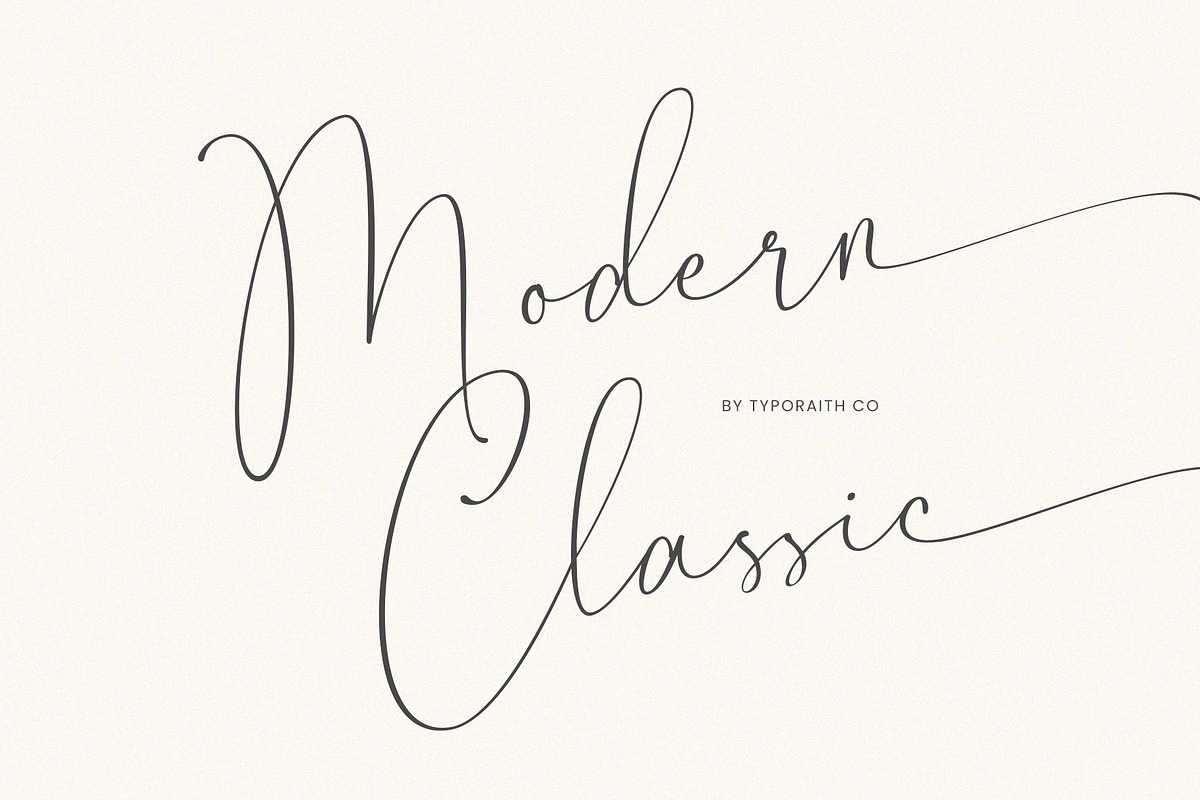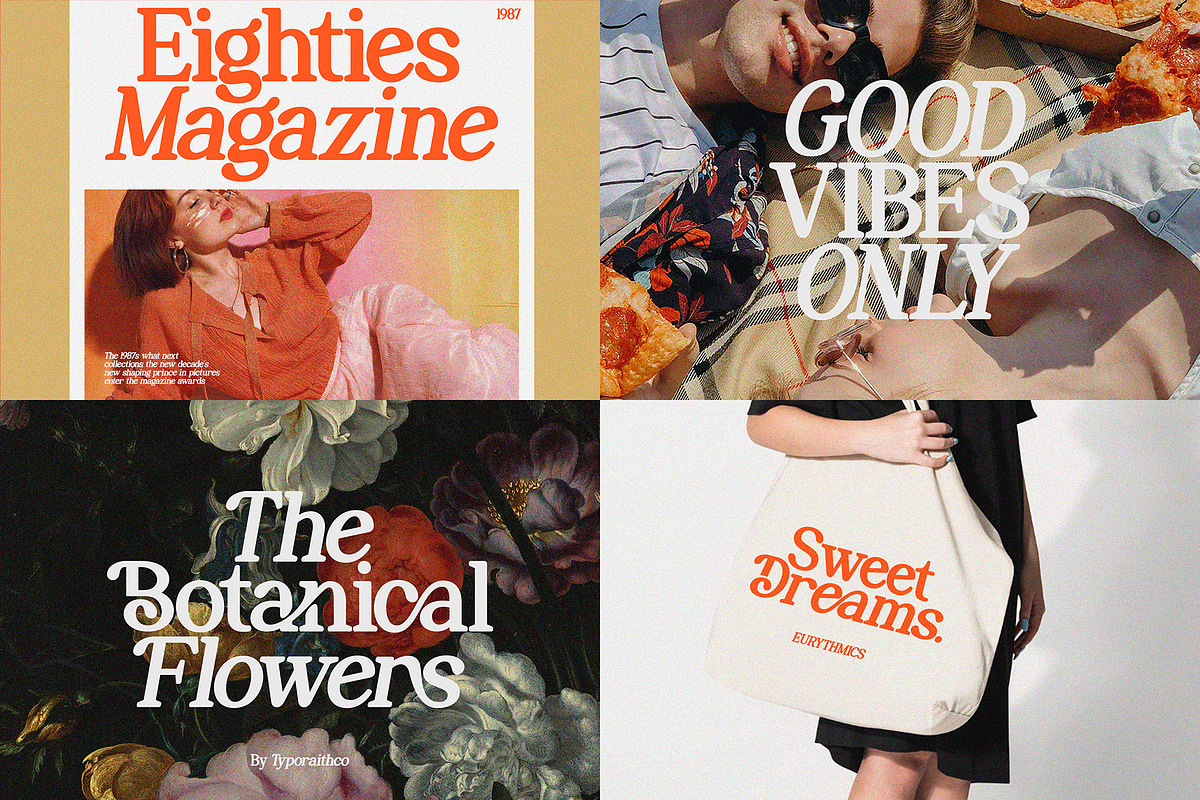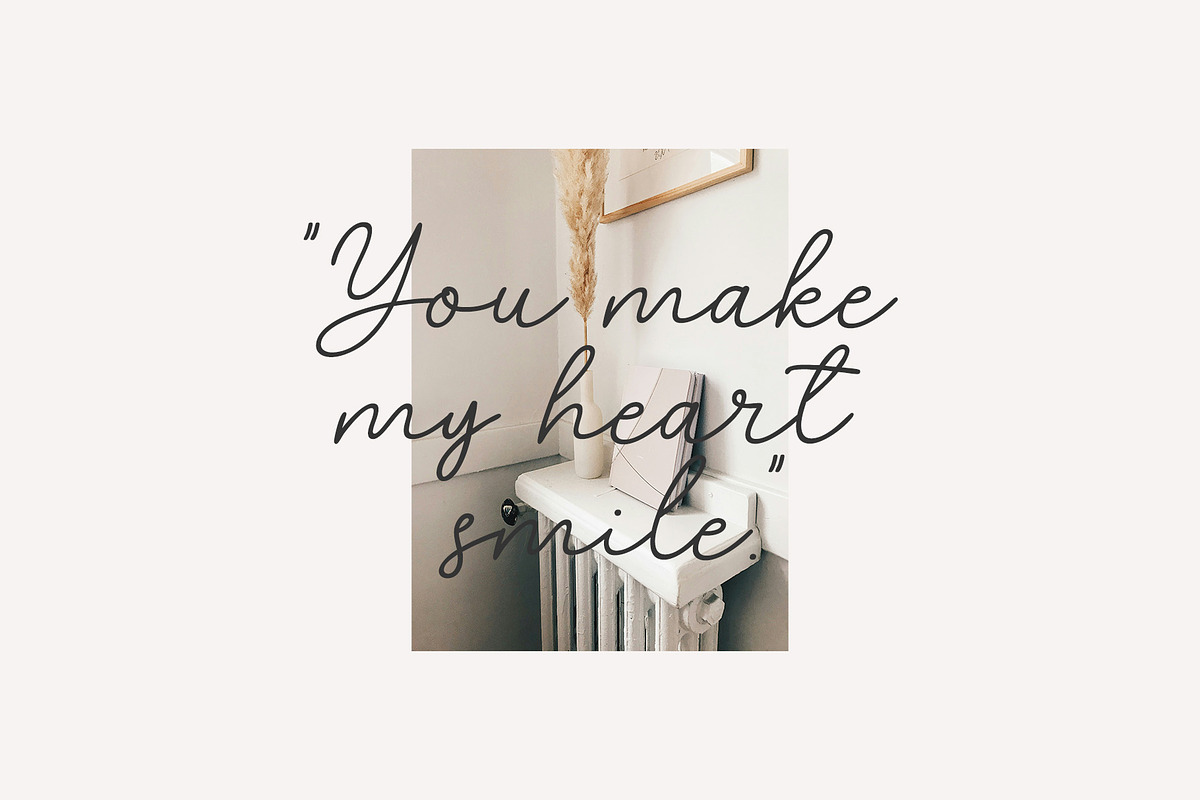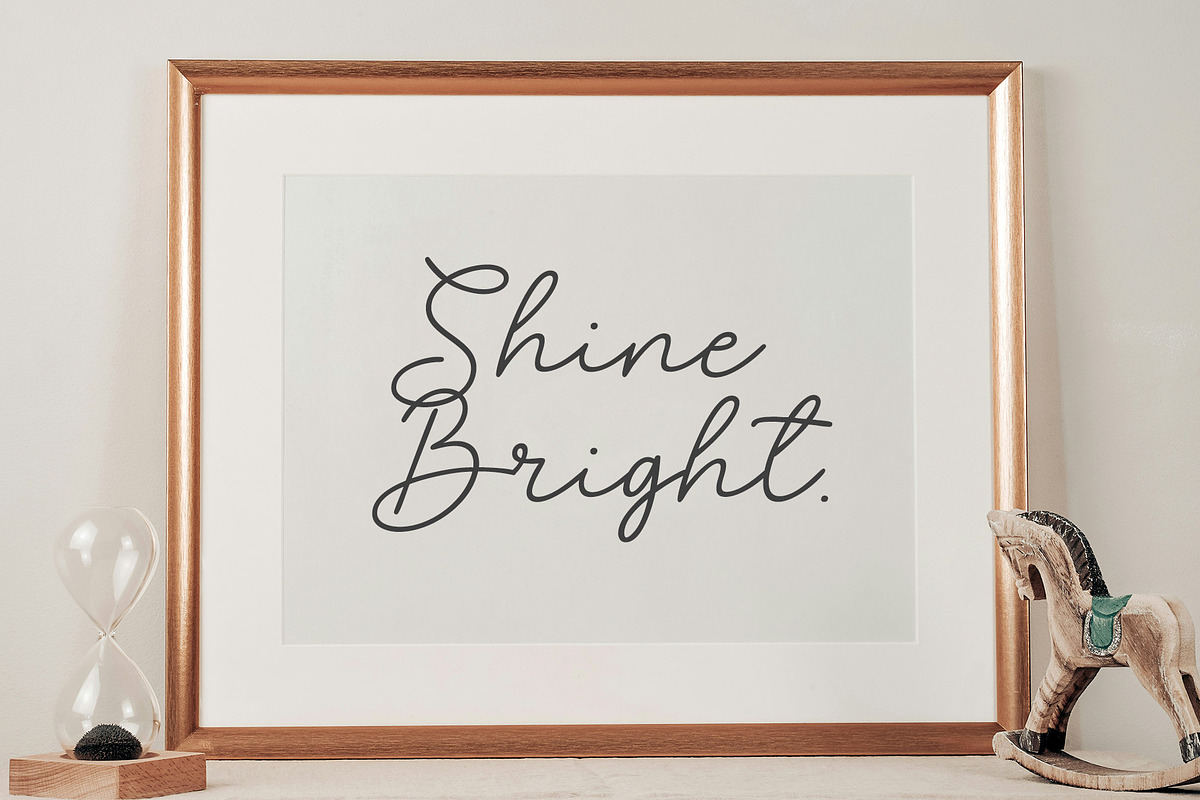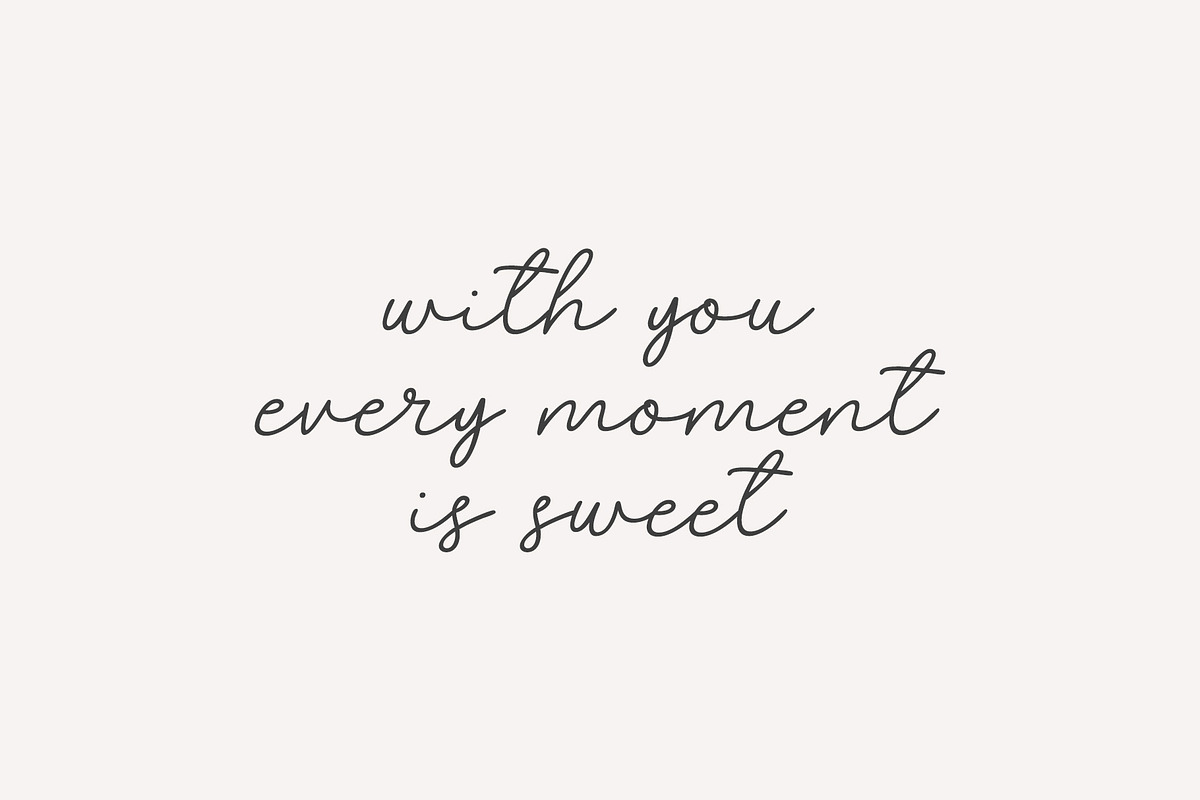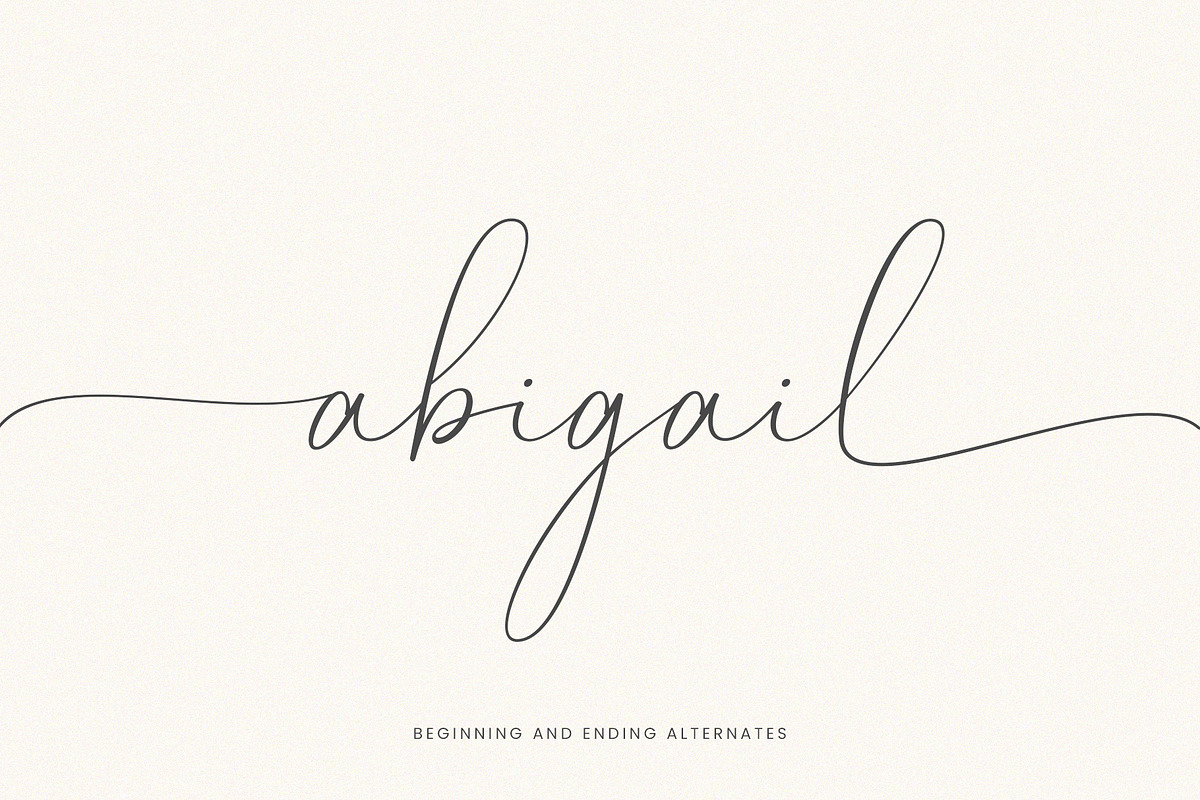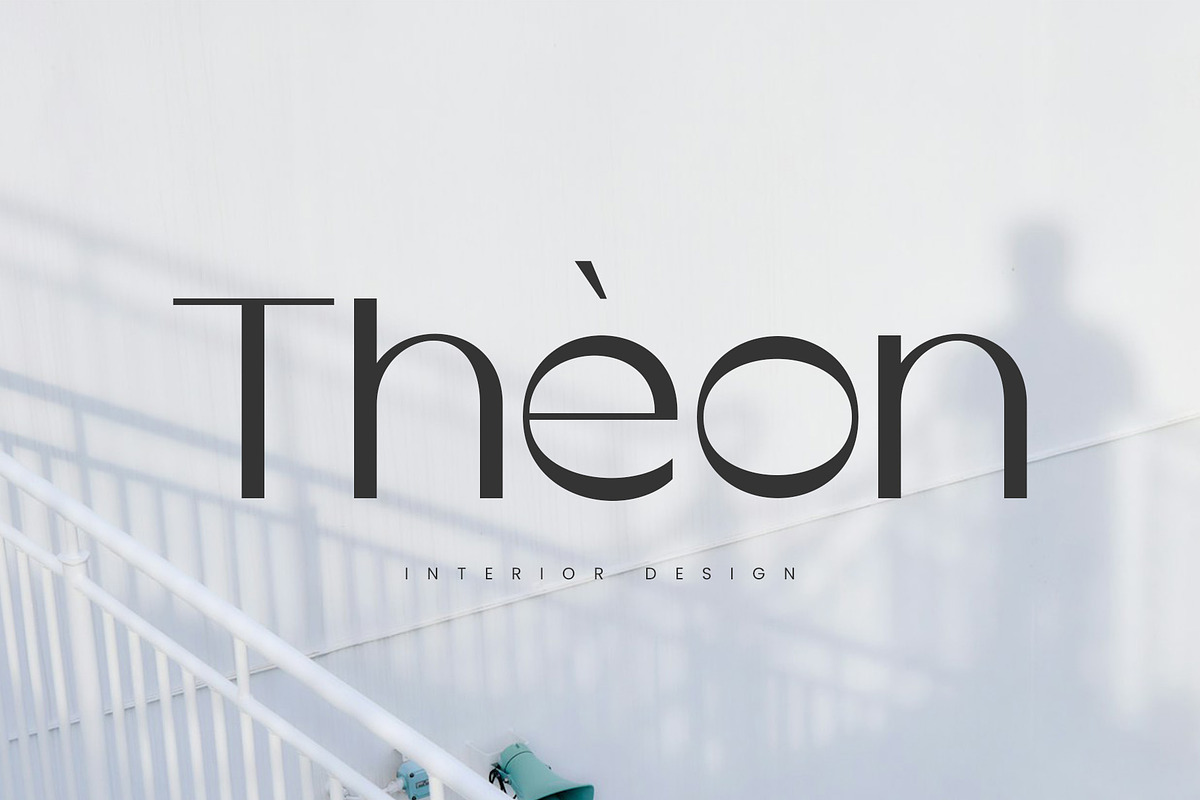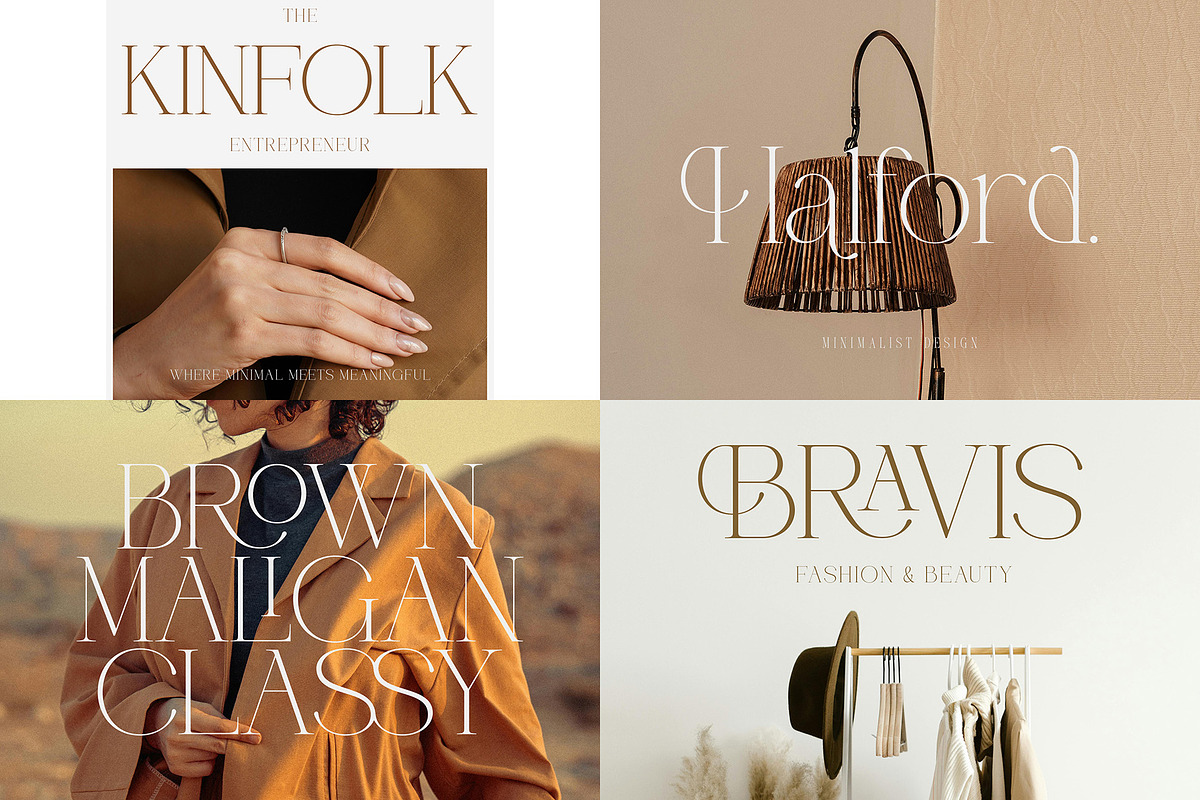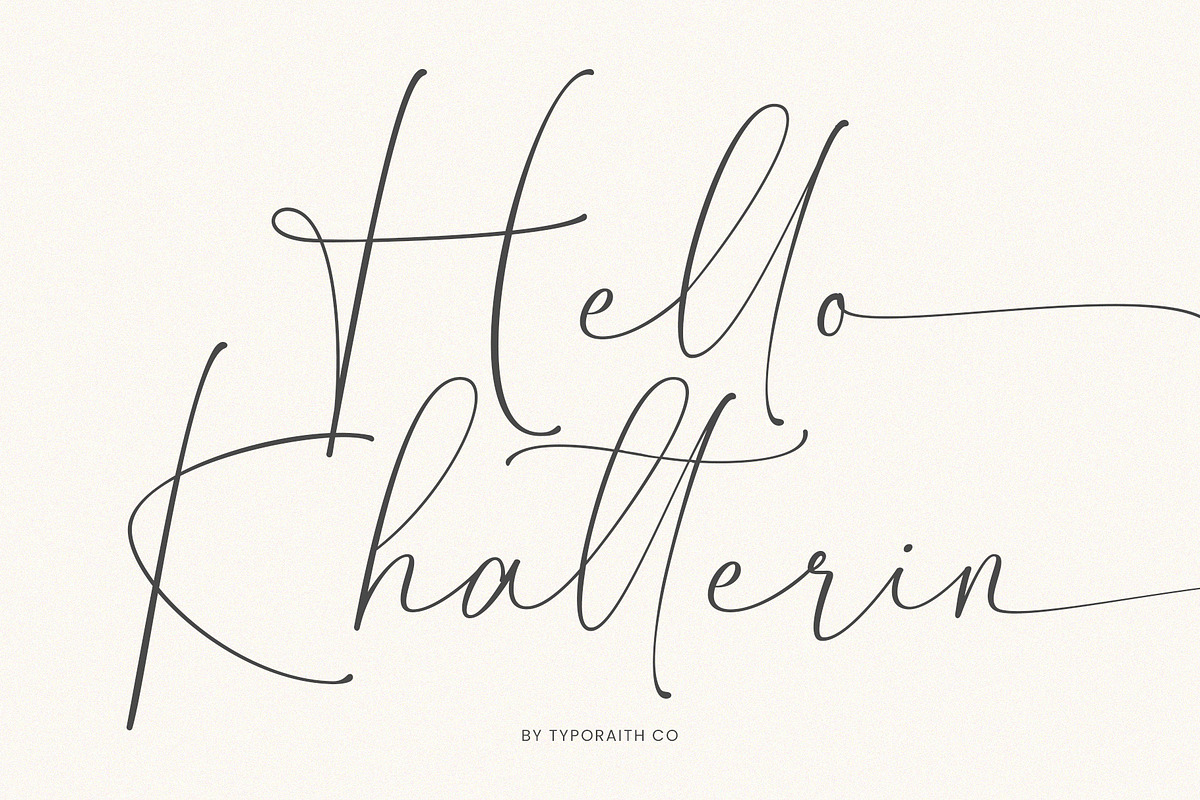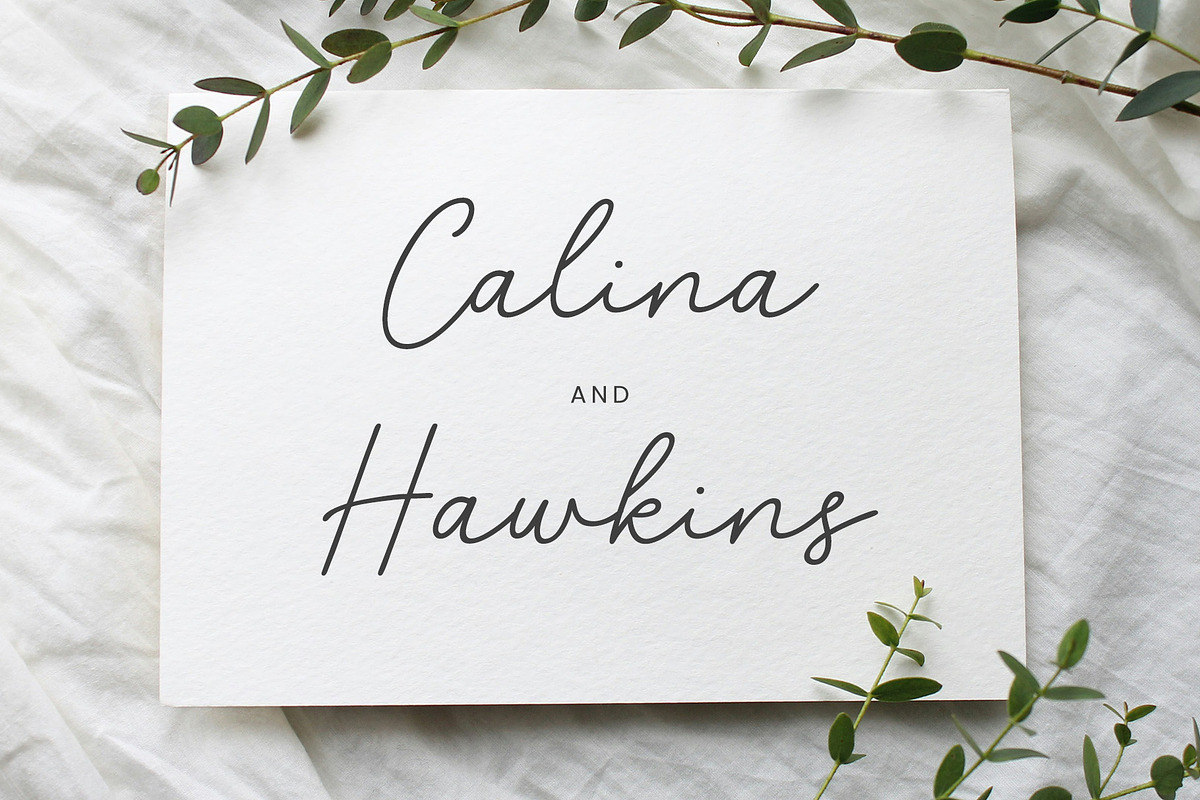
Modern Serif Font Bundle
Elevate your design work with a collection of 12 premium serif, sans serif and script fonts that blend modern aesthetics with classic elegance. The Modern Serif Font Bundle is perfect for creatives, designers, and brands looking for refined, stylish, and versatile typography.
Why Designers Love This Bundle:
- Timeless Aesthetic – Each font blends modern minimalism with classic elegance, perfect for high-end and editorial designs.
- Versatile Usage – From logos and branding to invitations and web design, these fonts adapt beautifully to any project.
- Full Character Sets – Includes uppercase, lowercase, punctuation, numerals, Alternates /Ligatures and multilingual support.